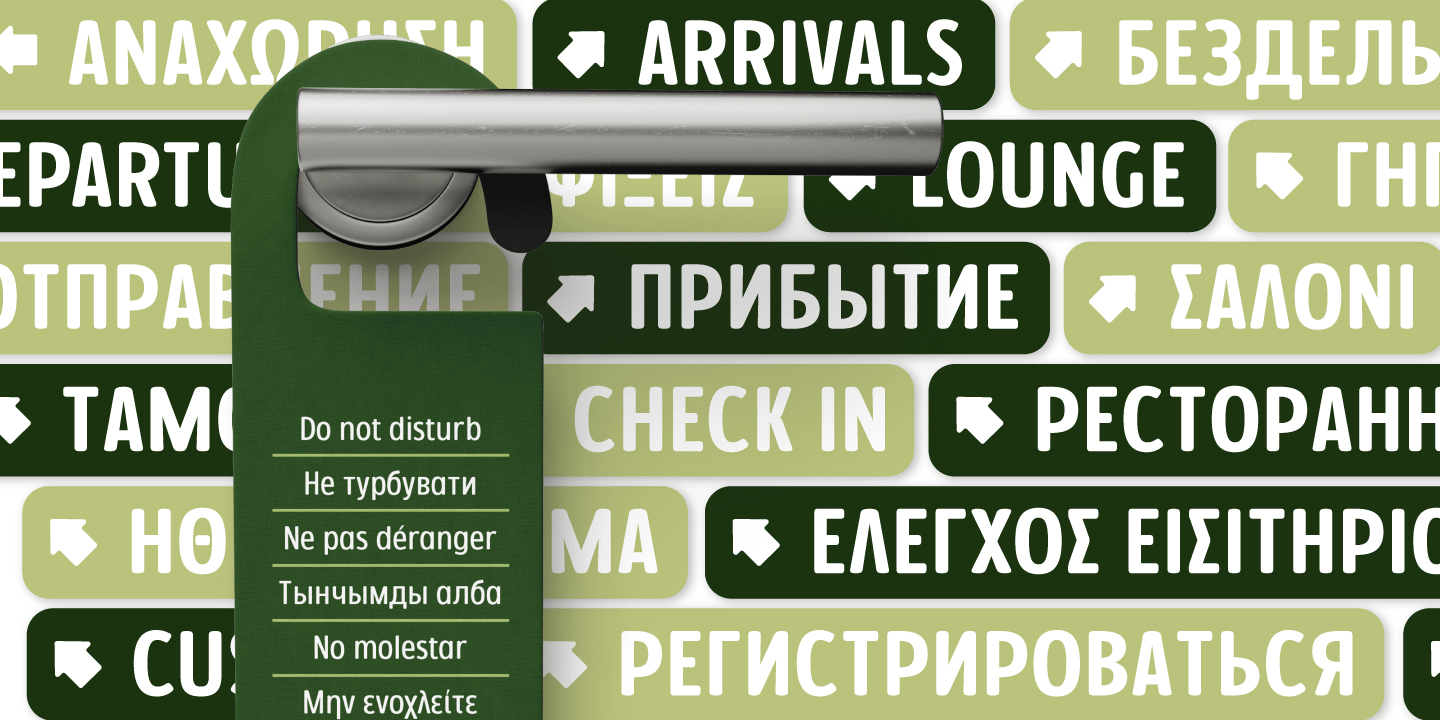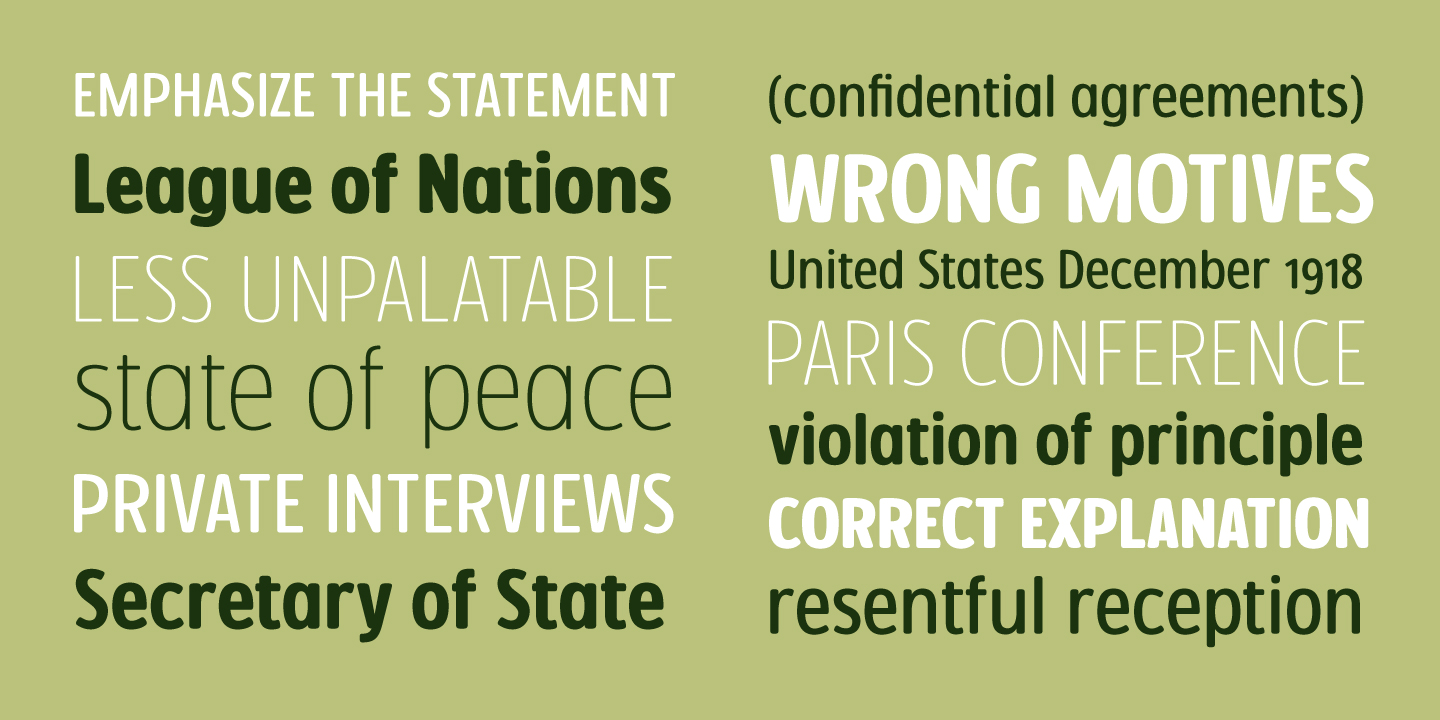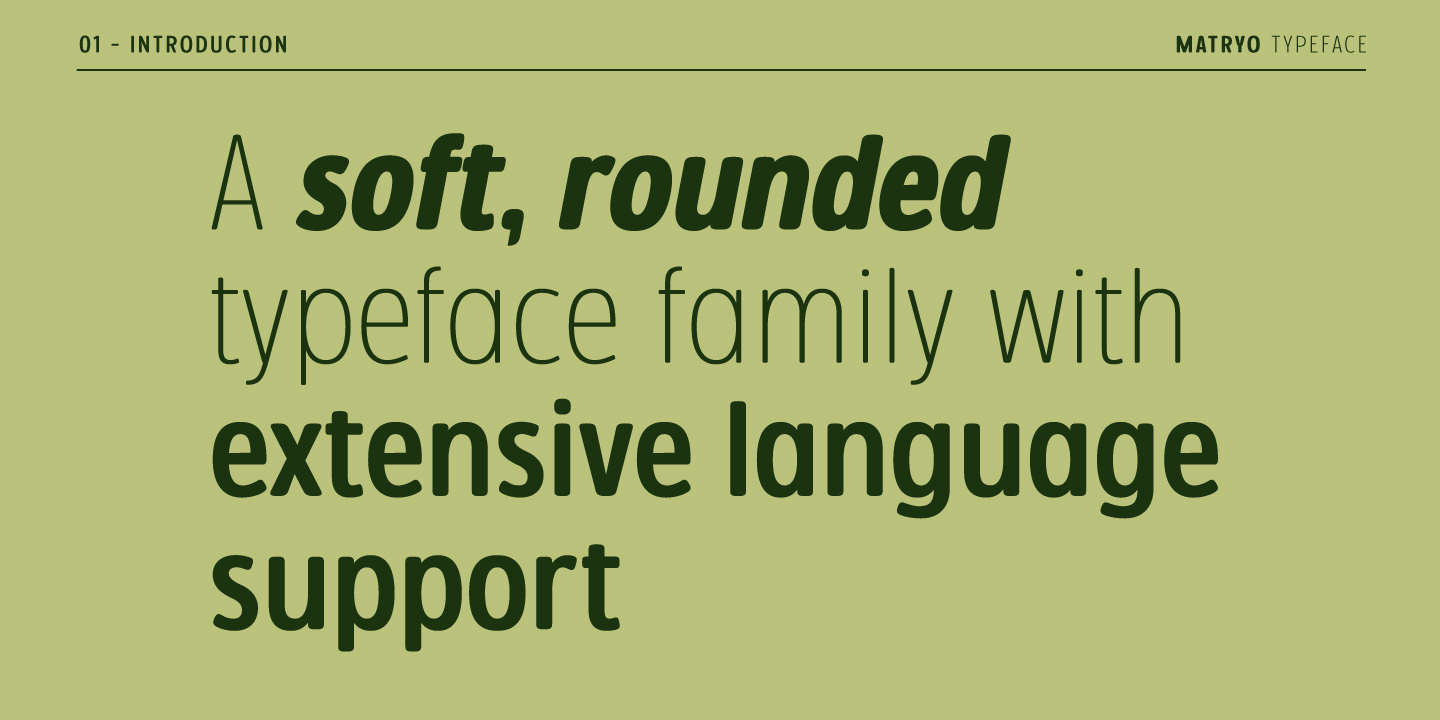
About Matryo
Matryo is a narrow, sans serif typeface family of fourteen typefaces, ranging from Thin to Black with accompanying Italics. With a soft, rounded form stroke and open shapes, it aims to remain clear and legible at all point sizes and can be set either…